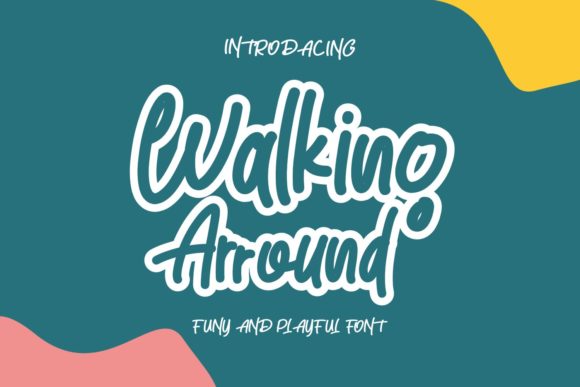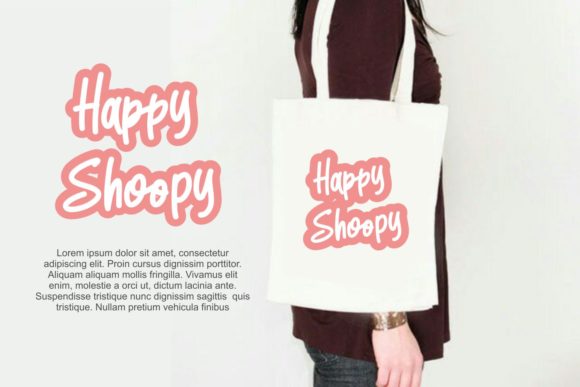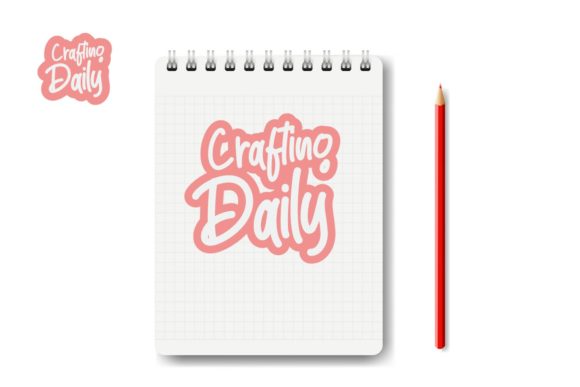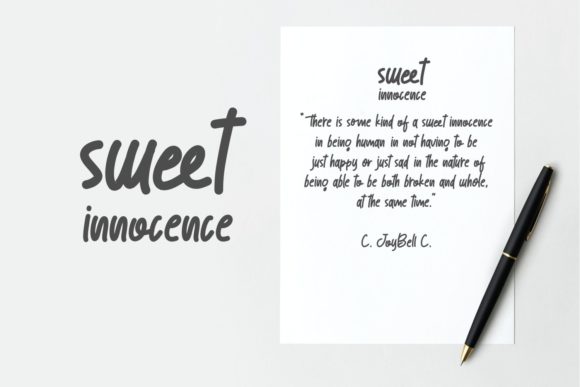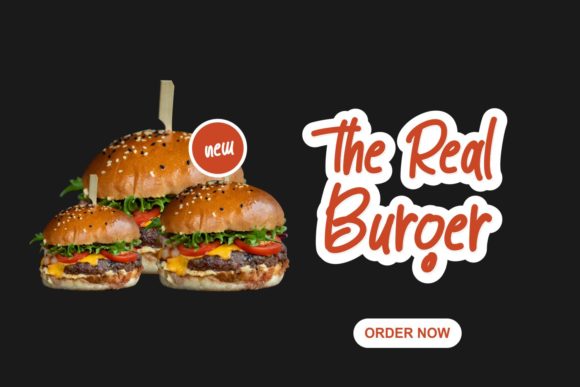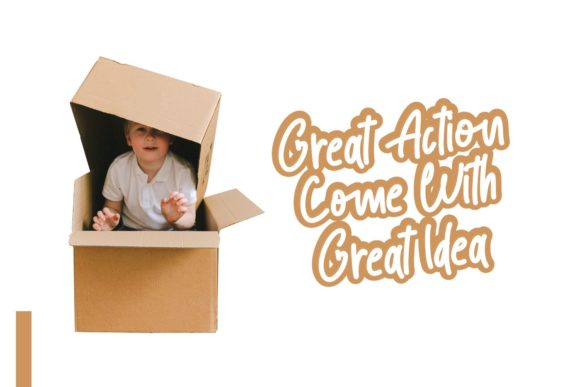
Walking Around Font
About Walking Around Font
Walking Around is a relaxed and flowing handwritten font. Fall in love with its incredibly versatile style and use it to create spectacular designs!